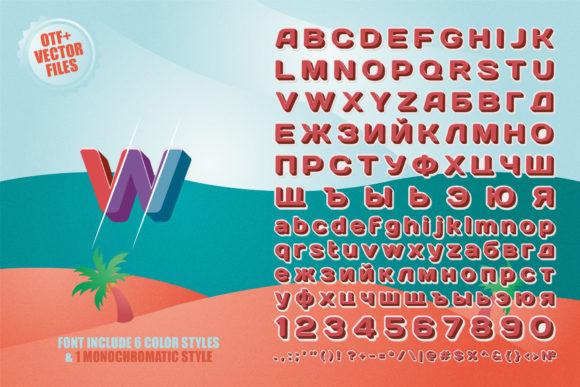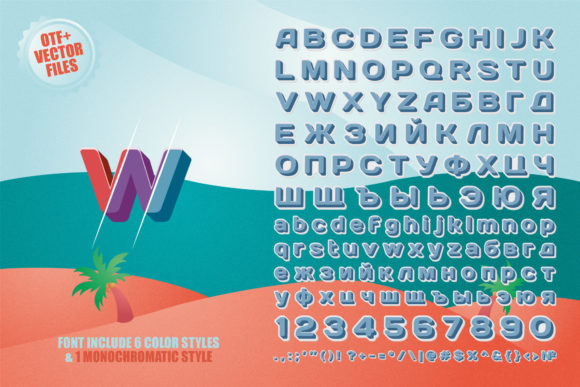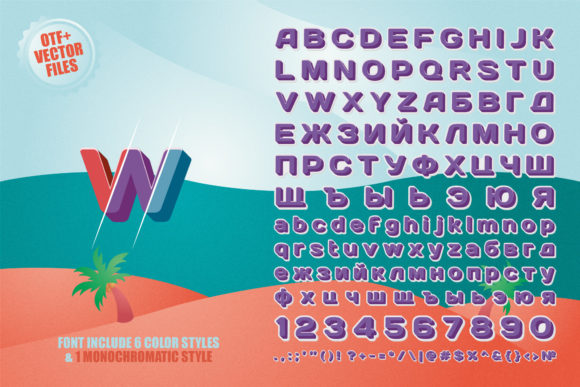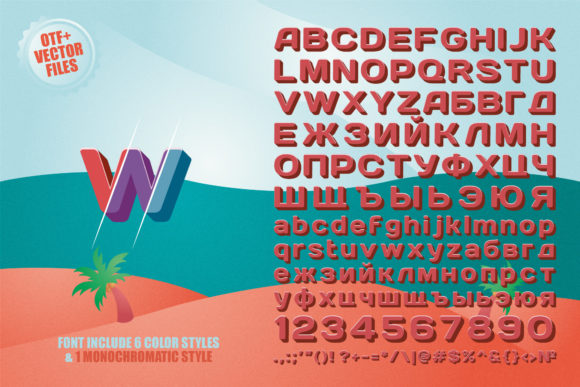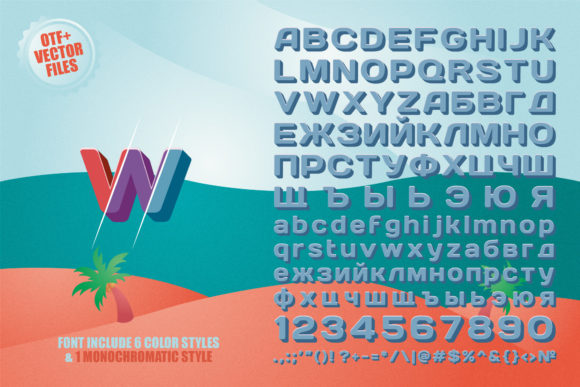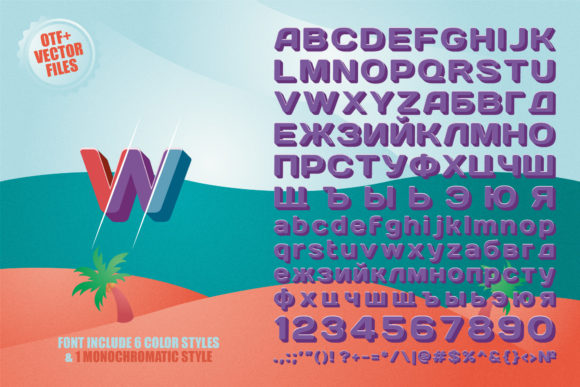
Unlock the Potential of Your Designs with Arco Font
Have you ever stared at a blank canvas, trying to bring your creative vision to life? The frustration can be real, but what if you had the perfect tool to elevate your work and make it stand out? That’s where the Arco Font comes in – a bold, robotic, and striking color font that’s about to become your new best friend.
This versatile font is not just a pretty face; it’s a powerful asset that can take your designs to the next level. Whether you’re working on a project for a client or just experimenting with new ideas, Arco Font has the potential to elevate any creation. With its compatibility with popular design software like PhotoShop, Illustrator, and Inkscape, you can unleash your creativity and bring your vision to life.
Key Features of Arco Font
- Font Family: Arco Font is a sans-serif font family designed for modern and minimalist designs.
- Font Sizes: The font family is available in 6 different weights, ranging from Thin (100) to Bold (700), providing flexibility for various design applications.
- Resolution: Designed to work well at high resolutions, making it ideal for use in digital media, including websites, mobile apps, and presentations.
- Unique Characteristics: Arco Font features clean lines, geometric shapes, and a balanced x-height, making it highly legible and suitable for body text and headings.
Designer Review: Arco Font
When I first laid eyes on the Arco Font, I was immediately drawn to its sleek and modern aesthetic ✨. The clean lines, rounded edges, and subtle curvature give the font a unique yet approachable feel that’s perfect for a wide range of designs. From logos to body text, Arco Font is versatile and easy to read, making it a great choice for digital and print materials.
One of the standout features of Arco Font is its ability to work well in both bold and light weights ✨. The font’s subtle nuances in weight and style allow designers to create visually appealing contrasts and emphasis, adding depth and interest to their designs. Additionally, the font’s open license makes it easily accessible and free for commercial use, which is a major plus.
- ⚠️ Limited character set: While Arco Font is a solid choice for many designs, its character set is limited compared to more comprehensive fonts. This may not be a concern for designers working on specific projects, but it’s worth noting for those who need a font with a wider range of characters.
- ⚠️ May not be suitable for small text: Due to its rounded edges and subtle curvature, Arco Font may not be the best choice for small text sizes. The font’s lines can become blurry and difficult to read at very small sizes, which may be a concern for designers working on materials that require small text.
Overall, I’m impressed with the Arco Font and its potential for a wide range of design projects ✨. While it may have some limitations, the font’s unique aesthetic and versatility make it a great addition to any designer’s toolkit.
Common Use Cases for Arco Font
Arco Font is ideal for modern and sleek designs, making it perfect for branding, marketing materials, and digital products. It’s also great for creating professional-looking presentations, documents, and websites.